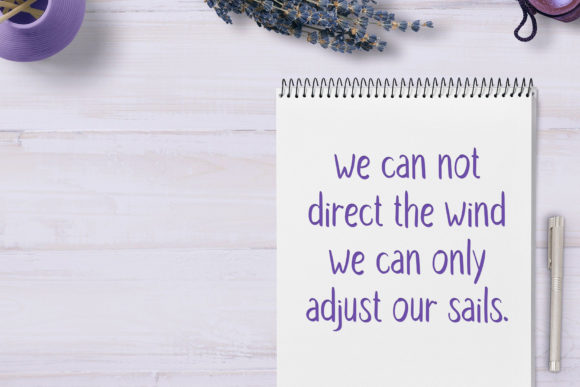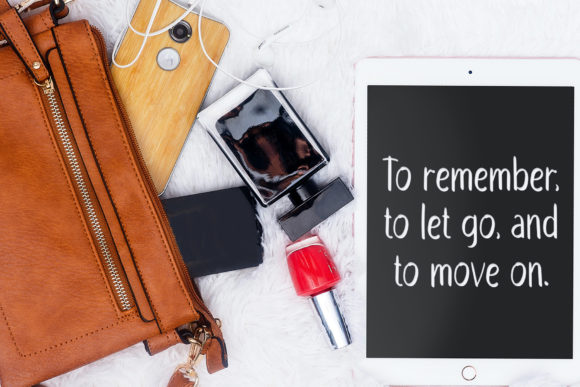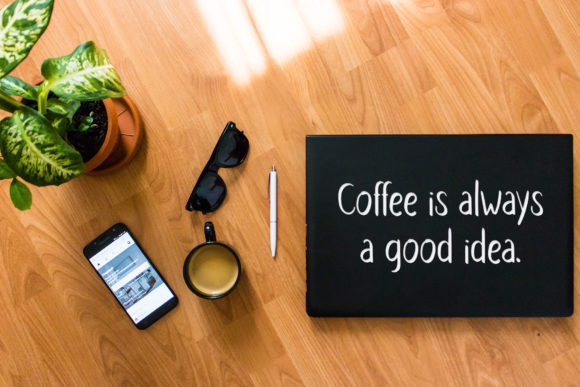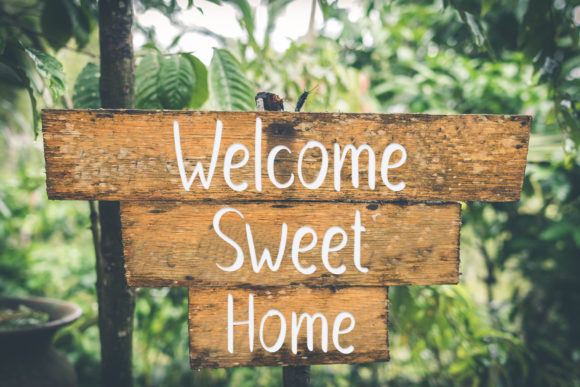
Discover the Sweet Charm of Buttermilk Font
Have you ever been stuck in a creative rut, staring at a blank page, desperate for the perfect font to bring your design to life? It’s a moment we’ve all been there. The solution lies in the unique, handwritten style of the Buttermilk Font. This sweet and friendly typeface is the perfect addition to any design project, from whimsical invitations to rustic branding.
As a designer, you know that the right font can make all the difference in conveying your message and capturing the essence of your brand. The Buttermilk Font’s natural charm and versatility make it an invaluable asset to your design toolkit. Its limitless possibilities are waiting to be unleashed, and with its gentle, handwritten feel, the only limit is your imagination!
Buttermilk Font Key Features
- Font Family: Buttermilk Font is a sans-serif font family, suitable for various design applications.
- Unique Characteristics: The font features a clean and modern design, with subtle rounded edges and a friendly feel, making it ideal for body text and headings.
Buttermilk Font Review
Buttermilk Font is a unique and quirky sans-serif typeface that adds a touch of whimsy to any design project. I’ve had the chance to work with this font, and here are my honest thoughts.
The Buttermilk Font has a lovely, hand-drawn feel to it, which sets it apart from more traditional sans-serif fonts.
The font is highly legible, even at smaller font sizes, making it suitable for a wide range of design applications.
The font’s unique character set includes some delightful little flourishes and ornaments, which can add a lot of visual interest to a design.
The Buttermilk Font can feel a bit over-the-top or too playful for certain design projects, particularly those that require a more serious or formal tone.
The font’s irregularities can sometimes make it difficult to read, particularly for users with visual impairments.
I’d recommend the Buttermilk Font for design projects that require a touch of personality and whimsy. While it may not be suitable for every project, it’s definitely a fun and unique option to consider.
The Buttermilk font is ideal for creative projects, such as:
- Food and restaurant branding
- Travel and tourism marketing
For optimal results, use the Buttermilk font in conjunction with high-quality images and creative layouts.
Alternatives to Buttermilk Font
Great Vibes is a beautiful, modern script font perfect for creating elegant and sophisticated designs. It’s ideal for use in wedding invitations, branding, and packaging. Great Vibes is more elegant and refined compared to Buttermilk Font, which has a more rustic and vintage feel.
Alex Brush is a handwritten font with a touch of elegance and sophistication. It’s great for use in creative projects, such as book covers, magazine titles, and advertisements. Alex Brush is more polished and refined than Buttermilk Font, with a softer and more subtle feel.
Pacifico is a beautiful, modern script font with a relaxed and casual feel. It’s perfect for use in beach-themed designs, branding, and advertising. Pacifico is more laid-back and casual compared to Buttermilk Font, which has a more rustic and vintage feel.